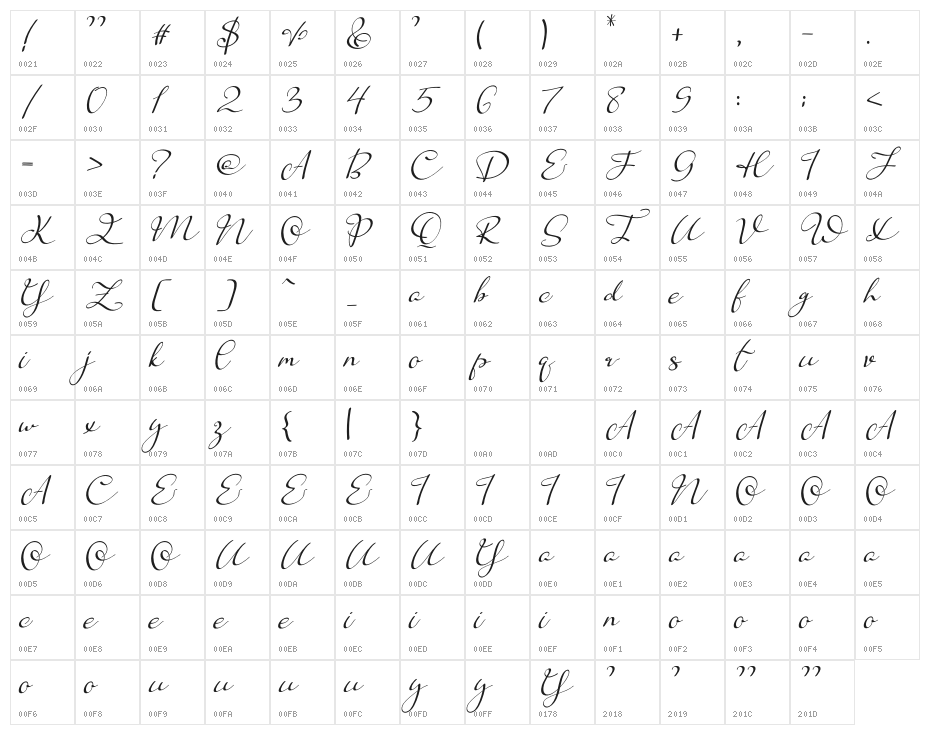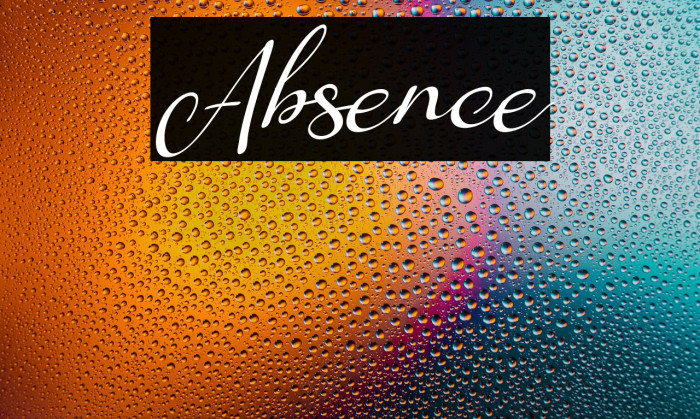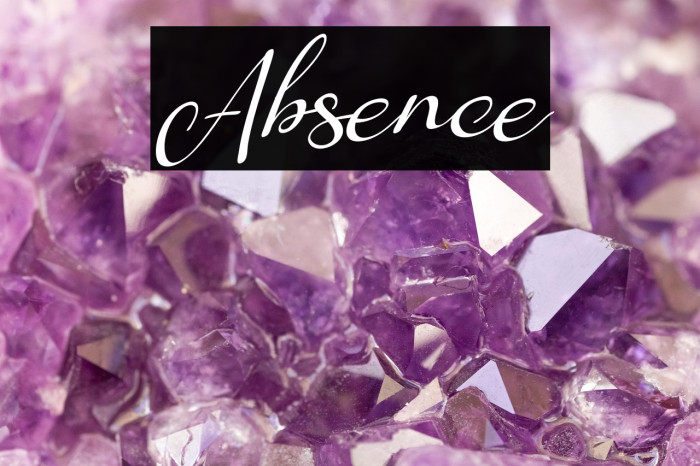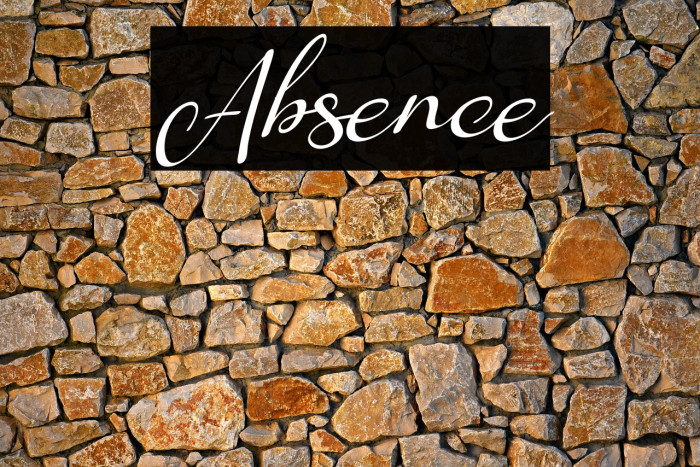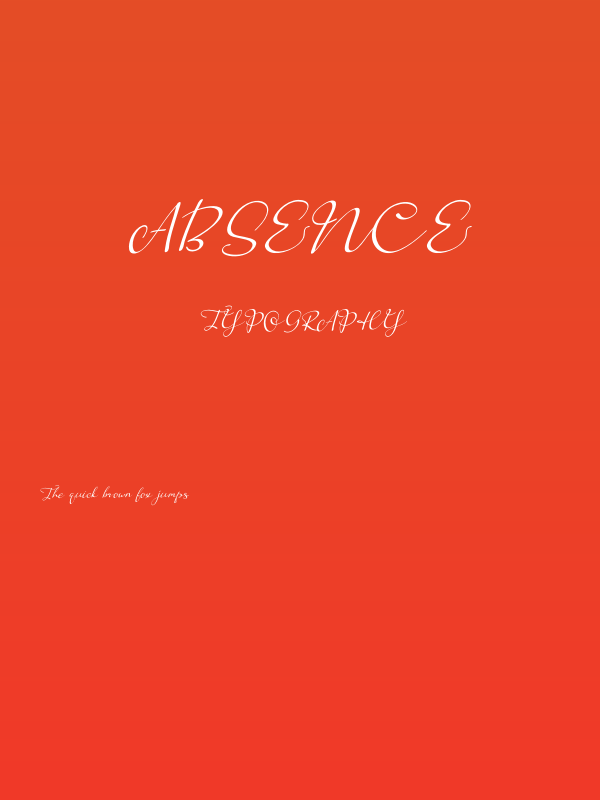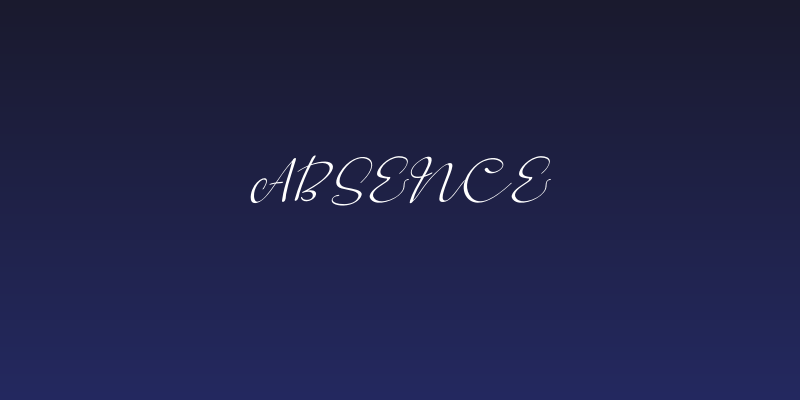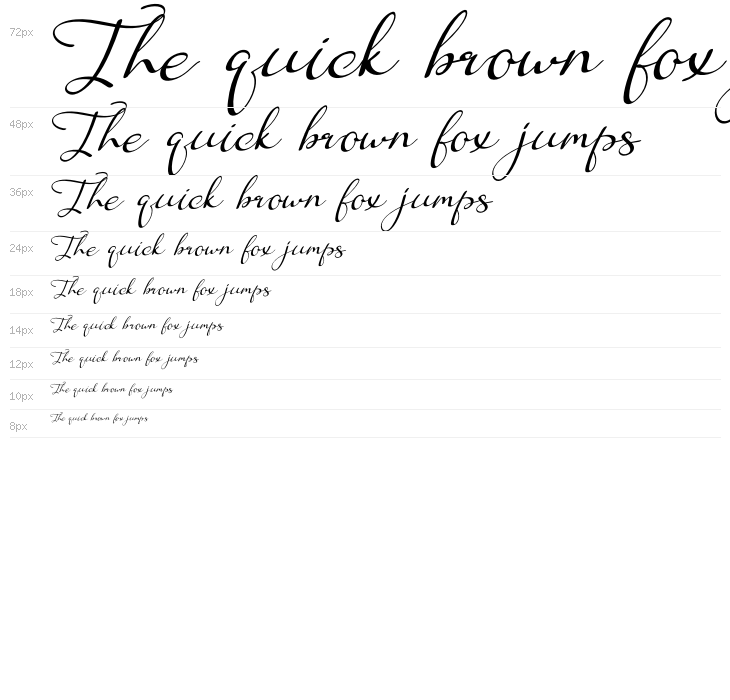
Absence Font
Absence Description
This elegant script font features fluid, cursive strokes that give it a sophisticated and graceful appearance. The uppercase letters are characterized by their sweeping curves and loops, while the lowercase letters maintain a consistent flow with delicate connections. The numerals are stylishly crafted, matching the overall aesthetic of the font. Special characters are thoughtfully designed to complement the script style, adding versatility for various uses. The font's refined and artistic nature makes it suitable for formal invitations, branding, and decorative purposes.
Overall StyleElegant, Decorative
Use CaseHeadlines, Invitations, Branding
Proposed ProjectsIdeal for wedding invitations, elegant branding, greeting cards, and decorative projects.